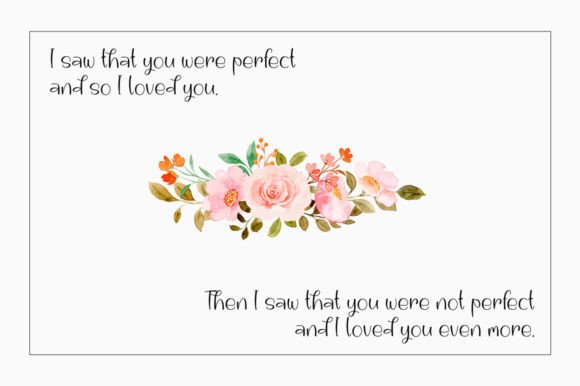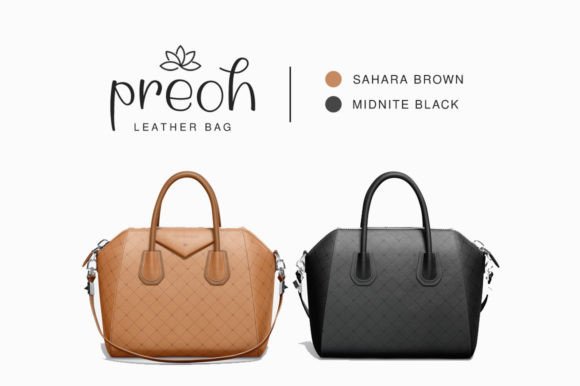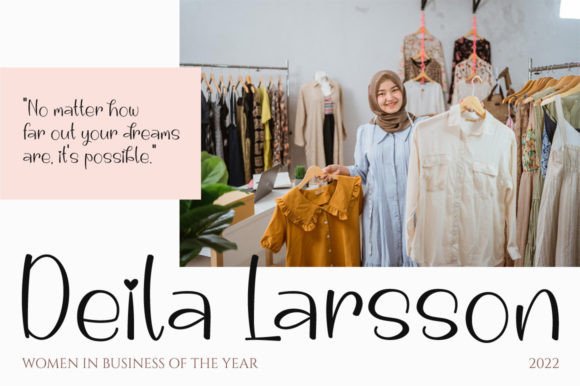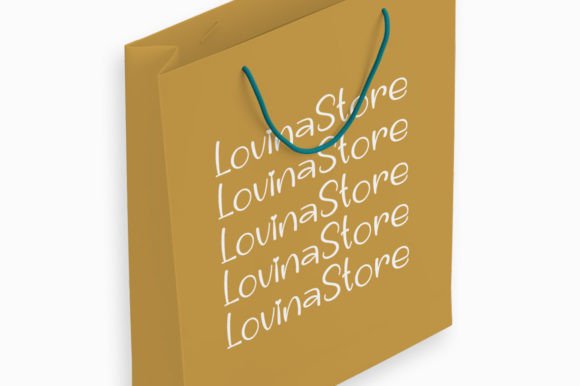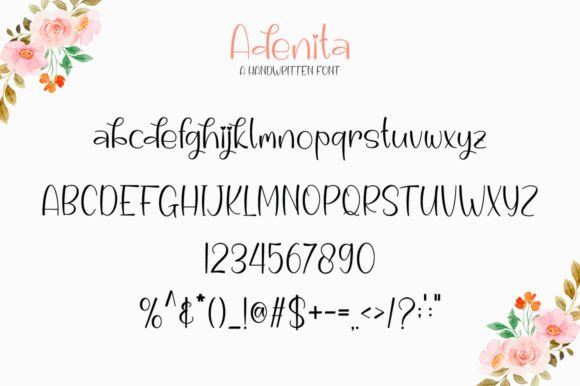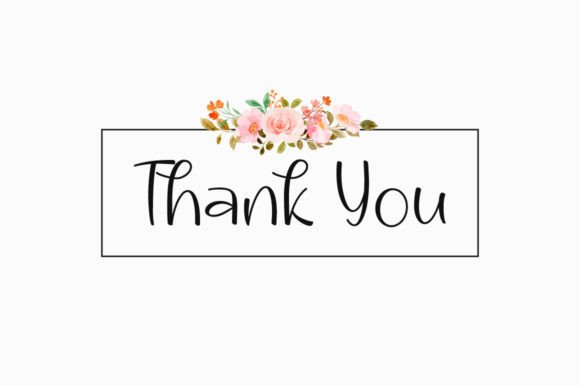
Adenita Font: The Perfect Handwritten Font for Your Creative Projects
Adenita font is a fun and smart-looking handwritten font that has gained popularity among designers and crafters. Its unique and elegant style makes it perfect for a variety of creative projects, including invitations, thank you cards, quotes, greeting cards, logos, business cards, and more. In this article, we’ll explore the features and benefits of Adenita font and why it’s a great choice for your next design project.
What is Adenita Font?
Adenita font is a handwritten font designed to add a touch of personality and elegance to your designs. Its smart and fun look makes it perfect for a wide range of applications, from formal events to casual designs. The font features beautiful, flowing lines and a unique style that sets it apart from other handwritten fonts.
Key Features of Adenita Font
• Unique and Elegant Style: Adenita font has a distinct and sophisticated style that adds a touch of class to your designs.
• Handwritten Look: The font has a beautiful, handwritten look that makes it perfect for designs that require a personal touch.
• Versatile: Adenita font can be used for a wide range of applications, including invitations, greeting cards, logos, business cards, and more.
• Easy to Read: The font is clear and easy to read, making it perfect for designs that require a lot of text.
Benefits of Using Adenita Font
There are many benefits to using Adenita font in your designs. Here are a few:
• Adds a Personal Touch: Adenita font adds a personal touch to your designs, making them more engaging and memorable.
• Perfect for Creative Projects: The font is perfect for creative projects, such as invitations, greeting cards, and quotes.
• Enhances Brand Identity: Adenita font can help enhance your brand identity by adding a unique and elegant touch to your designs.
Best Uses for Adenita Font
Adenita font is a versatile font that can be used for a wide range of applications. Here are some of the best uses for Adenita font:
• Invitations: Adenita font is perfect for invitations, including wedding invitations, birthday invitations, and more.
• Greeting Cards: The font is great for greeting cards, including Christmas cards, birthday cards, and more.
• Quotes: Adenita font is perfect for quotes, adding a touch of elegance and sophistication to your designs.
• Logos: The font can be used to create unique and elegant logos for your business or brand.
• Business Cards: Adenita font is great for business cards, adding a touch of professionalism and elegance to your design.
Adenita font is a fun and smart-looking handwritten font that’s perfect for a wide range of creative projects. Its unique and elegant style makes it a great choice for designers and crafters who want to add a touch of personality and sophistication to their designs. With its versatility, ease of use, and beautiful style, Adenita font is a great addition to any design project.